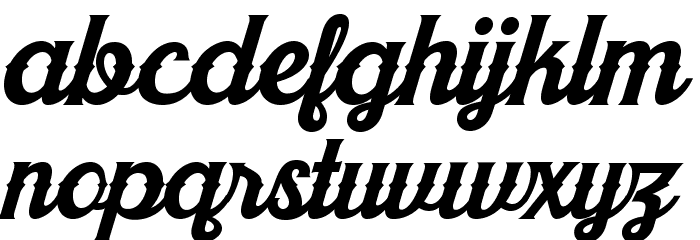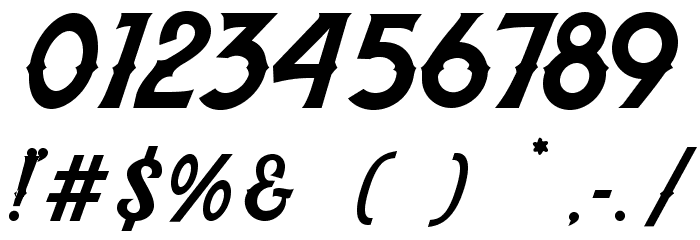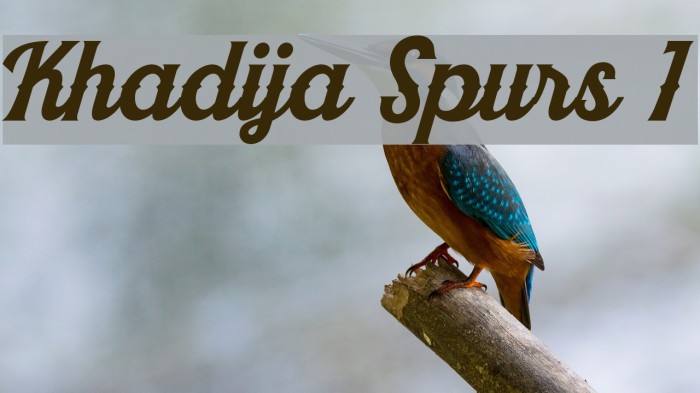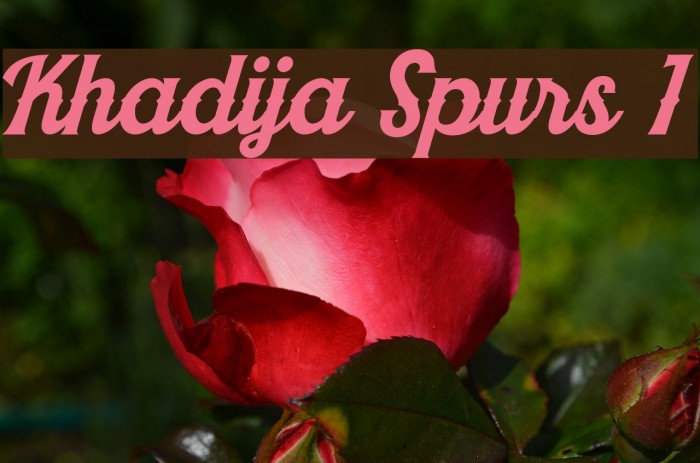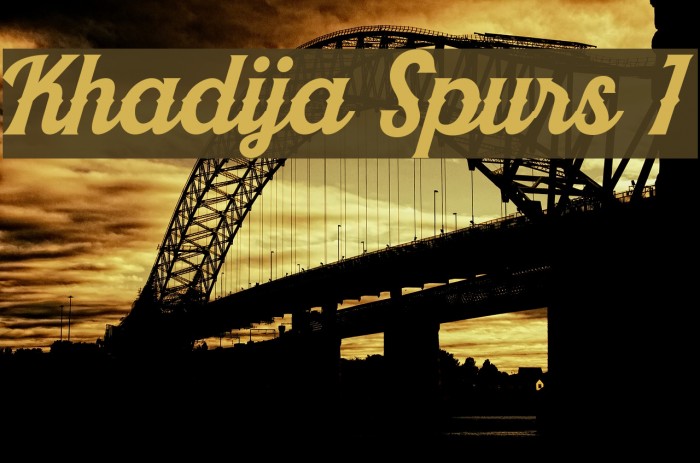
Khadija Spurs 1 Font
This font features a bold and dynamic script style with a strong presence. The characters are connected, showcasing a fluid and cursive design that exudes elegance and flair. The uppercase letters are slightly more angular, giving them a distinctive and striking appearance, while the lowercase letters maintain a smooth and flowing form. The numbers and special characters are consistent with the overall style, offering a cohesive look. The font's boldness and high contrast in stroke thickness make it stand out, ideal for capturing attention.
A bold, dynamic script font with high contrast and elegant cursive style.
- Proposed Projects: Perfect for branding, logos, headlines, invitations, and any project requiring a touch of elegance and flair.
- Category: Script
- Use Case: Logos, Headlines, Invitations